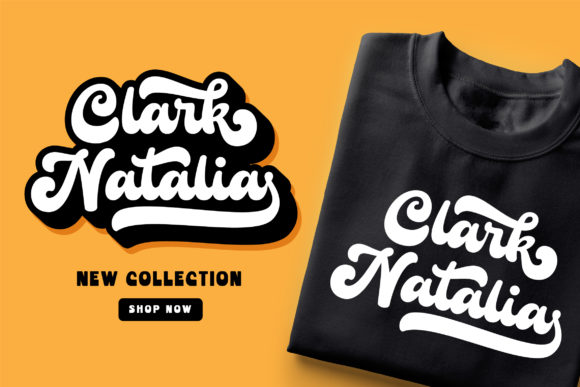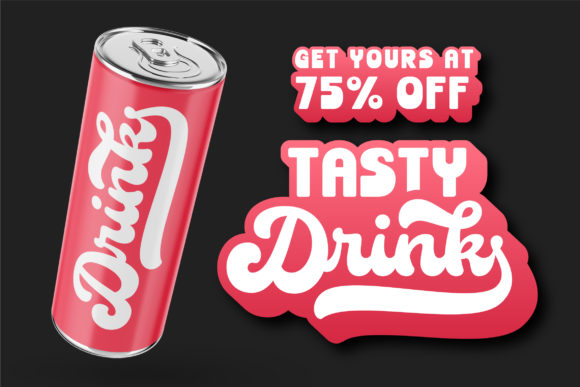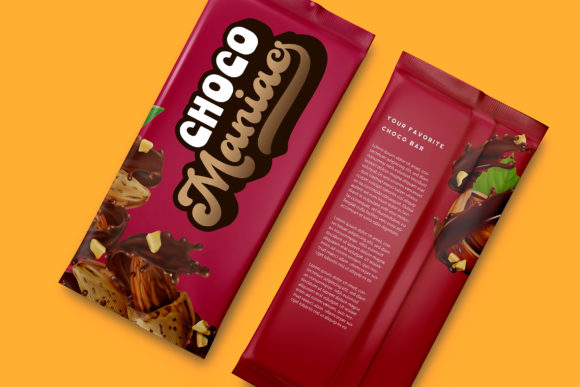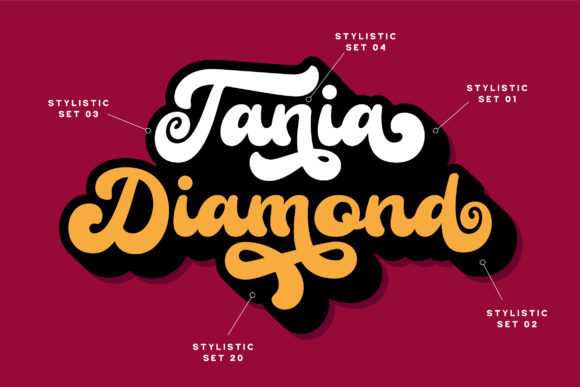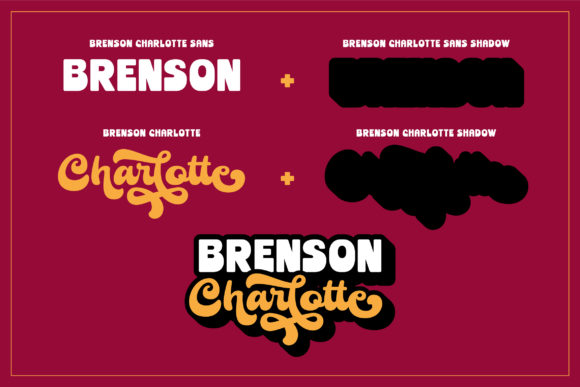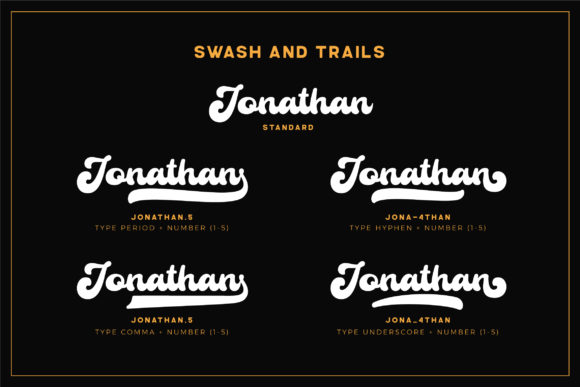
Introducing Brenson Charlotte Font: The Ultimate Retro Duo for Stunning Designs
Are you tired of using the same old fonts for your designs? Look no further! Brenson Charlotte Font is here to revolutionize your creative projects with its unique retro duo style, combining the elegance of script with the boldness of sans serif. This dynamic duo is perfect for making any design stand out, adding a touch of nostalgia and sophistication to your work.
What Makes Brenson Charlotte Font So Special?
Brenson Charlotte Font is not just another font; it’s a game-changer for designers and crafters alike. Its bold and dynamic looks make it perfect for a wide range of applications, from logotypes and typography designs to product packaging and quotes. The font’s retro taste is sure to captivate your audience, making your designs instantly memorable.
Brenson Charlotte Font’s versatility knows no bounds. Here are some of the many ways you can use this amazing font:
- Logotype: Create a lasting impression with a unique logotype that speaks to your brand’s personality.
- Typography Design: Add a touch of elegance and sophistication to your typography designs.
- Product Packaging: Make your products stand out on store shelves with eye-catching packaging.
- Quotes: Add a touch of inspiration and motivation to your quotes with a font that’s both bold and elegant.
- T-Shirt Design: Create stunning t-shirt designs that will make your customers look and feel great.
- Label Poster: Create eye-catching label posters that grab attention and convey your message effectively.
- Headings: Use Brenson Charlotte Font to create stunning headings that add a touch of sophistication to your content.
- Letterhead: Elevate your brand’s professional image with a beautifully designed letterhead.
- Cutting Sticker: Create custom stickers that make a lasting impression.
- Hot Stamping: Add a touch of luxury to your designs with hot stamping.
- Signage: Create eye-catching signage that grabs attention and communicates your message effectively.
Why Choose Brenson Charlotte Font?
With so many fonts available, why choose Brenson Charlotte Font? Here are just a few reasons:
- Unique Style: Brenson Charlotte Font offers a unique retro duo style that’s sure to make your designs stand out.
- Versatility: The font’s versatility makes it perfect for a wide range of design projects.
- High-Quality: The font is of high quality, ensuring that your designs look professional and polished.
Tips for Using Brenson Charlotte Font
Here are some tips for getting the most out of Brenson Charlotte Font:
- Experiment with Different Sizes: Play around with different font sizes to create visual interest and hierarchy in your designs.
- Combine with Other Fonts: Combine Brenson Charlotte Font with other fonts to create a unique and visually appealing design.
- Use in Combination with Images: Use Brenson Charlotte Font in combination with images to create stunning visual designs.
- Pay Attention to Kerning: Pay attention to kerning to ensure that your text looks professional and polished.